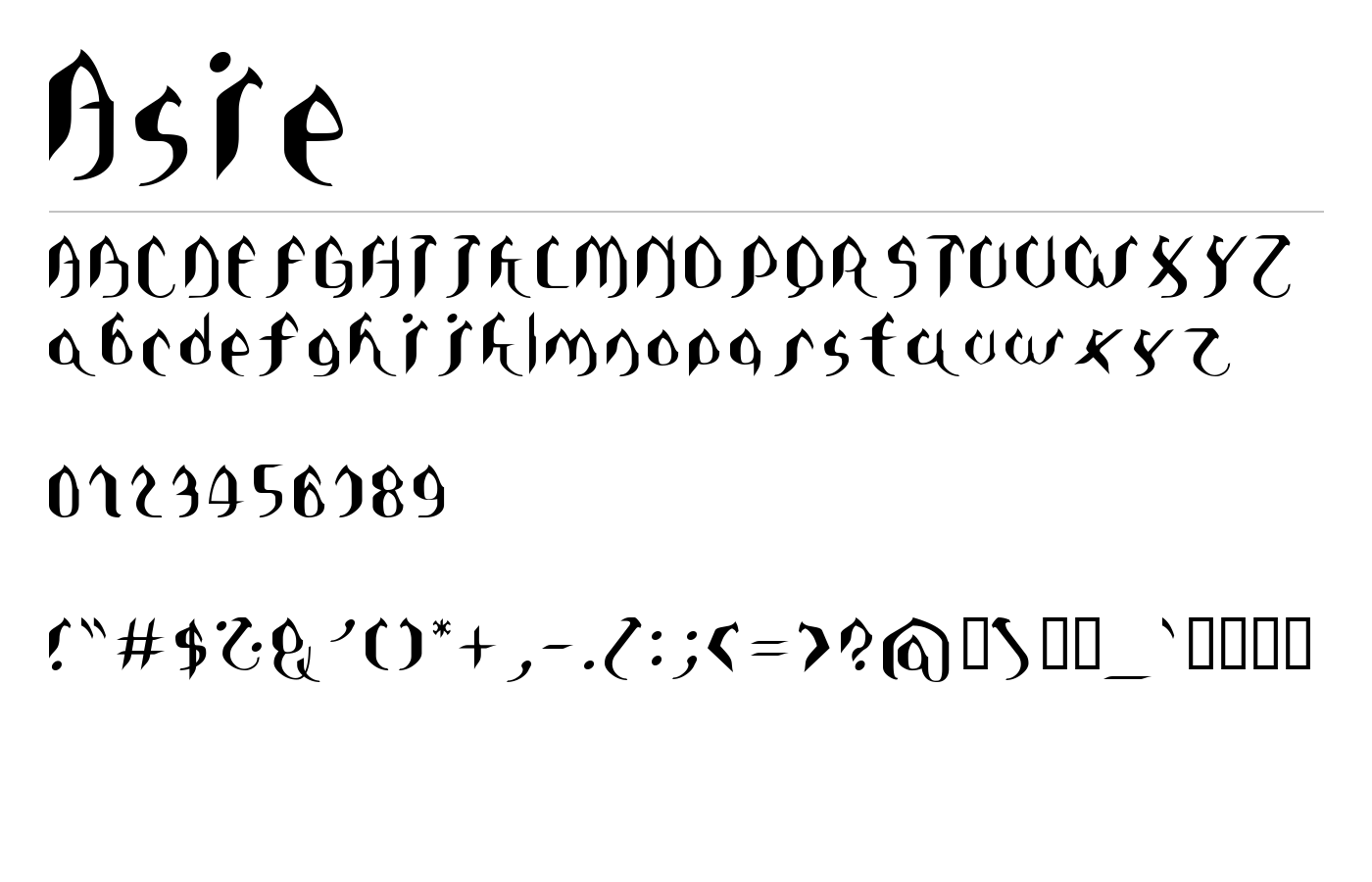
Asie is a decorative blackletter-inspired font with sharp, angular strokes and a high contrast between thick and thin lines, giving it a distinctive, medieval Gothic feel. Its unique, stylized letterforms convey a mysterious and historical vibe, making it ideal for artistic projects, themed branding, or headlines that seek to evoke an old-world, dramatic atmosphere. This font works best in display settings where its intricate character shapes can be appreciated.
Asie Font
About Asie Font